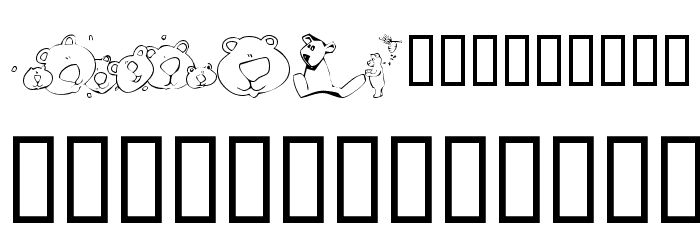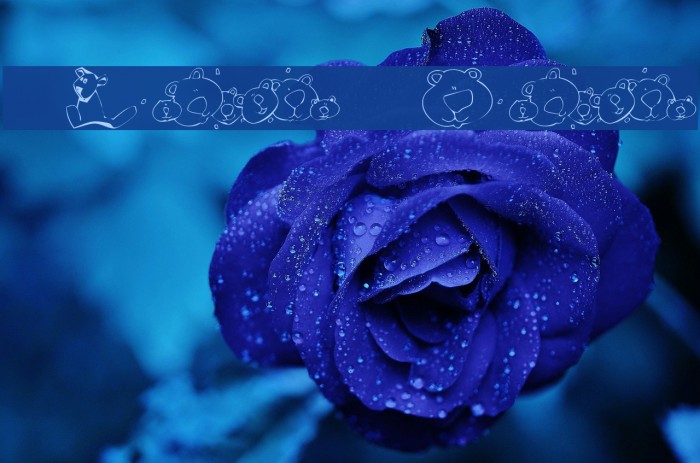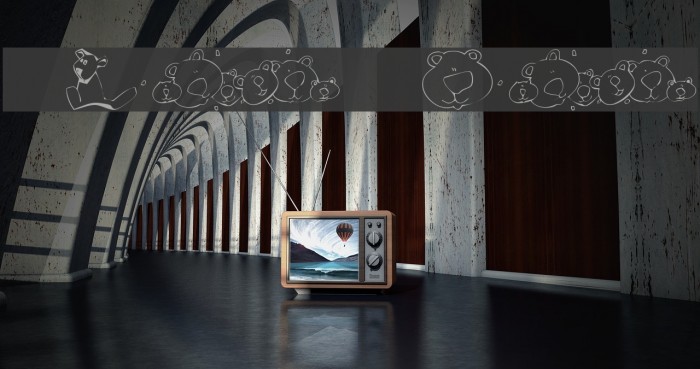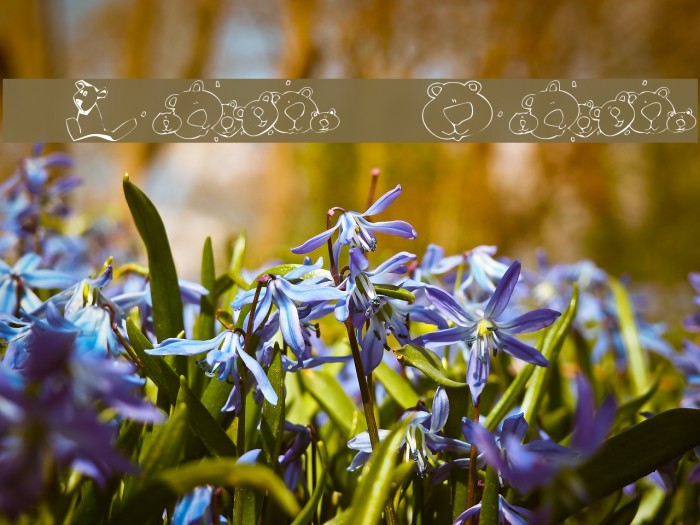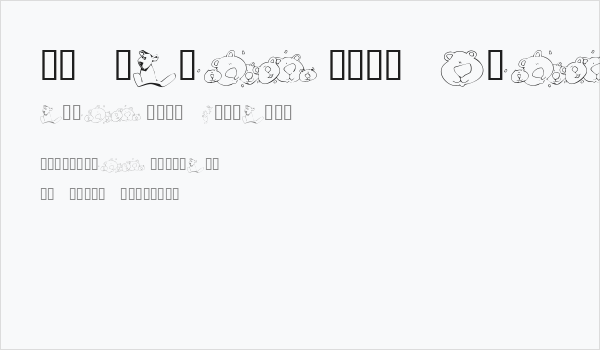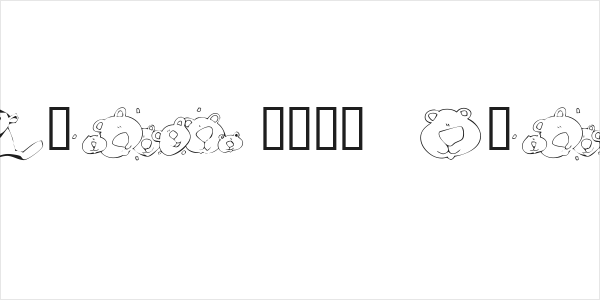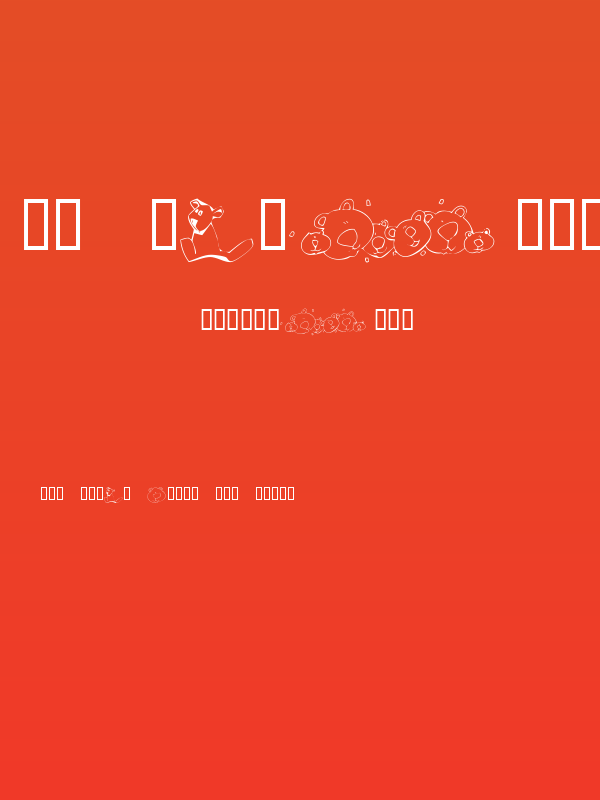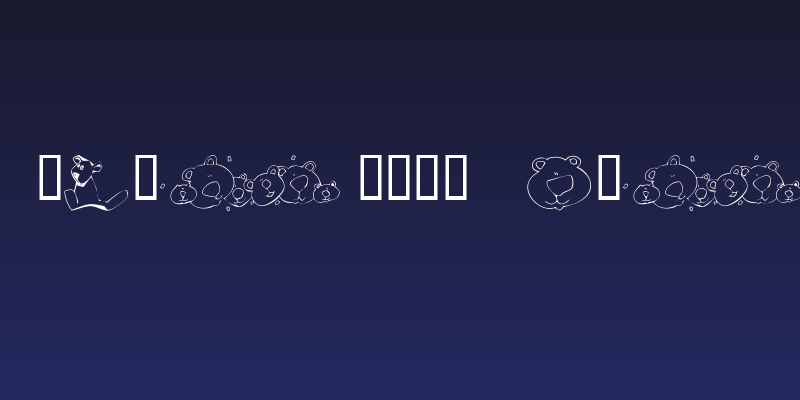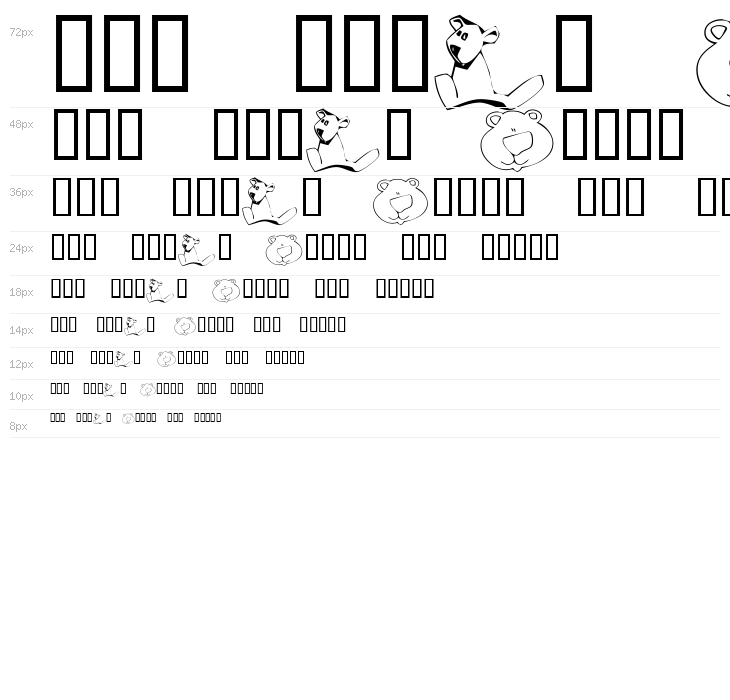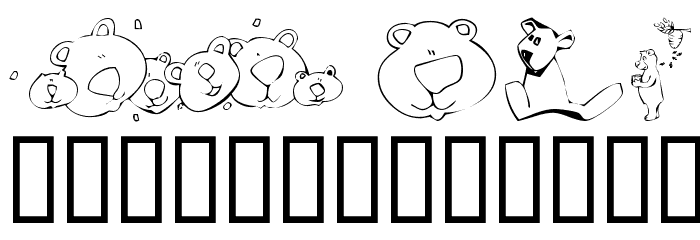
KR Scrappin Bears Font
KR Scrappin Bears Description
This is a decorative font featuring playful and whimsical bear illustrations. Each character is represented by a unique bear design, adding a charming and fun element to any project. The bears are drawn in a cartoonish style, with varying expressions and poses, making the font ideal for creative and lighthearted applications. The font is not suitable for traditional text but excels in providing a unique visual element. The illustrations are detailed and capture a sense of joy and playfulness, perfect for children's projects or any design that requires a touch of whimsy.
| Use Case | Logos, Posters, Creative Designs |
| Proposed Projects | Ideal for children's books, playful greeting cards, whimsical posters, and creative branding projects. |